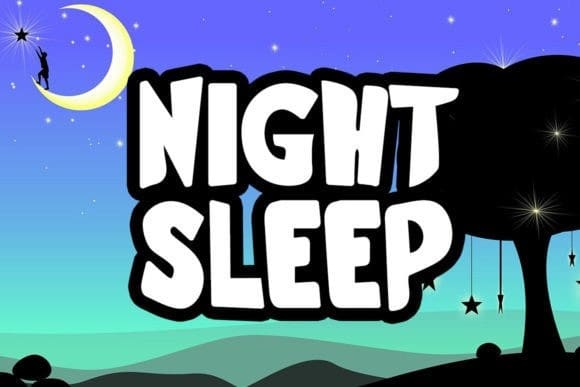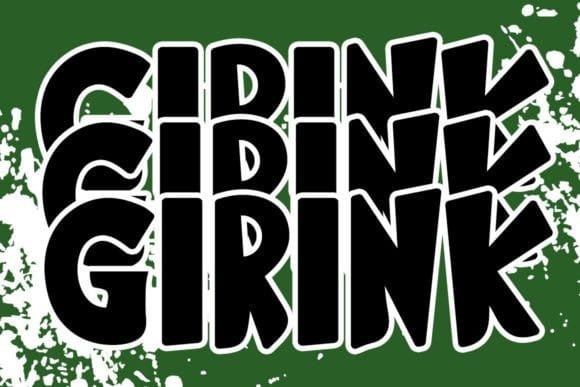
Girink Display Font
Girink Display Font is a bold, all caps display font featuring the perfect amount of trendiness. Whether you’re using it for crafting, digital designing, presentations or greeting cards making, it’s perfect!